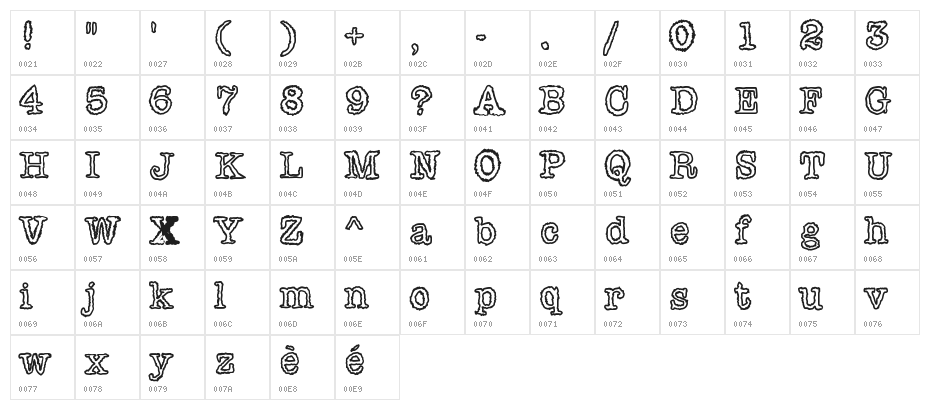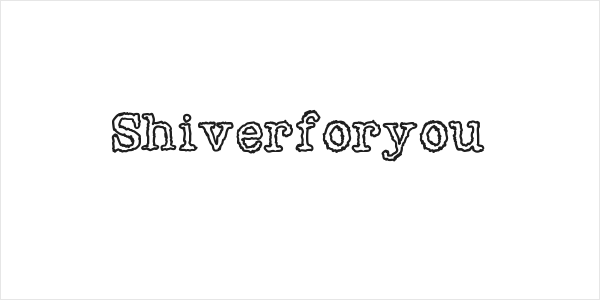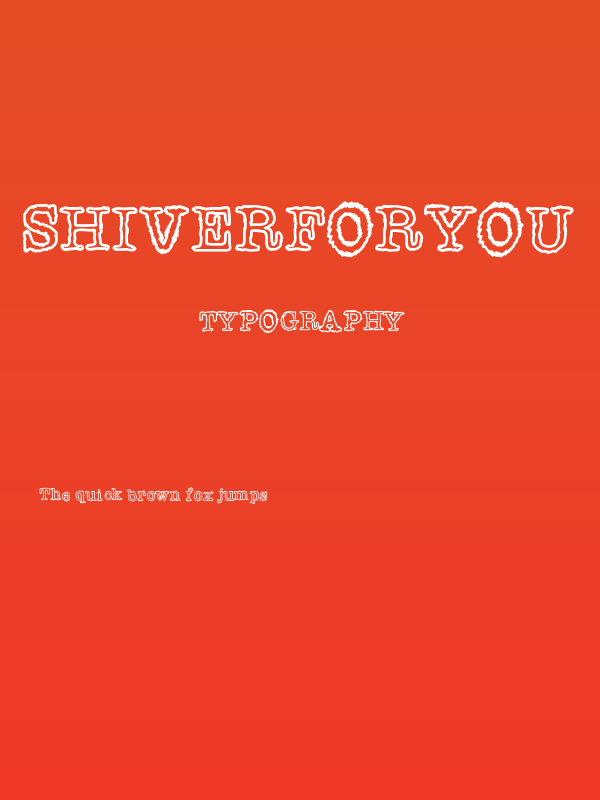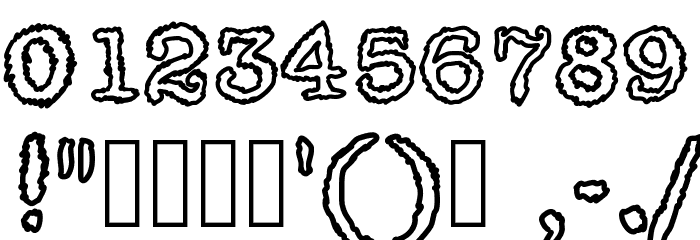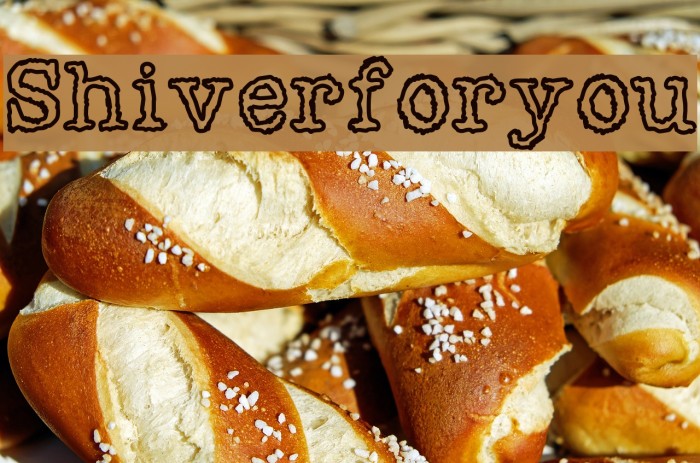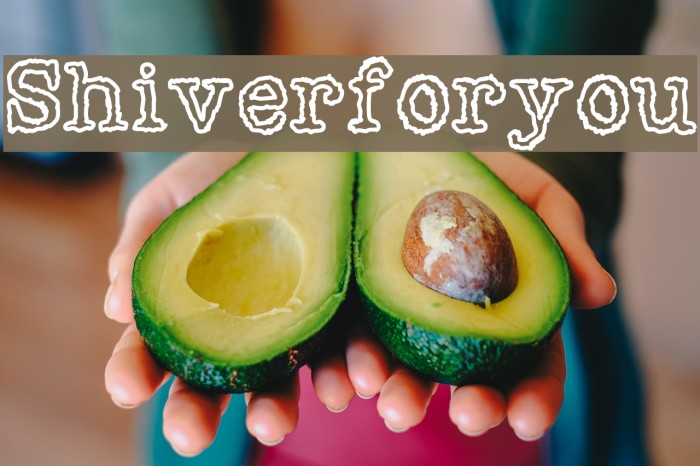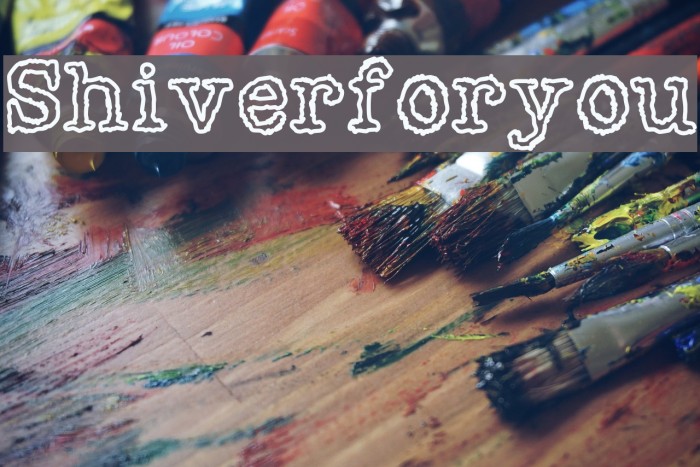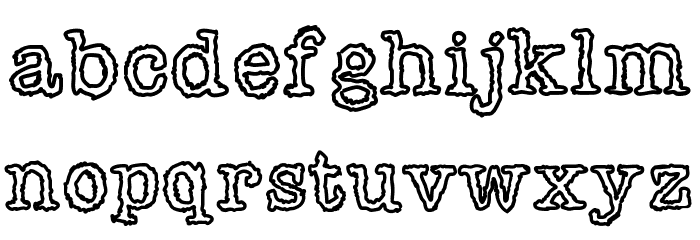
Shiverforyou Font
Shiverforyou Description
This font features a rugged, distressed style with a hand-drawn appearance. Each character is outlined with a rough, uneven edge, giving it a unique and organic feel. The uppercase and lowercase letters maintain a consistent style, with the uppercase being slightly more pronounced. Numbers and special characters follow the same design, ensuring uniformity across all glyphs. The font's texture suggests a vintage or grunge aesthetic, making it ideal for projects that require a bold, eye-catching look. Its irregular edges and bold presence make it stand out, while still being legible.
| Proposed Projects | Ideal for posters, album covers, branding for edgy or alternative products, and any design needing a bold, vintage touch. |